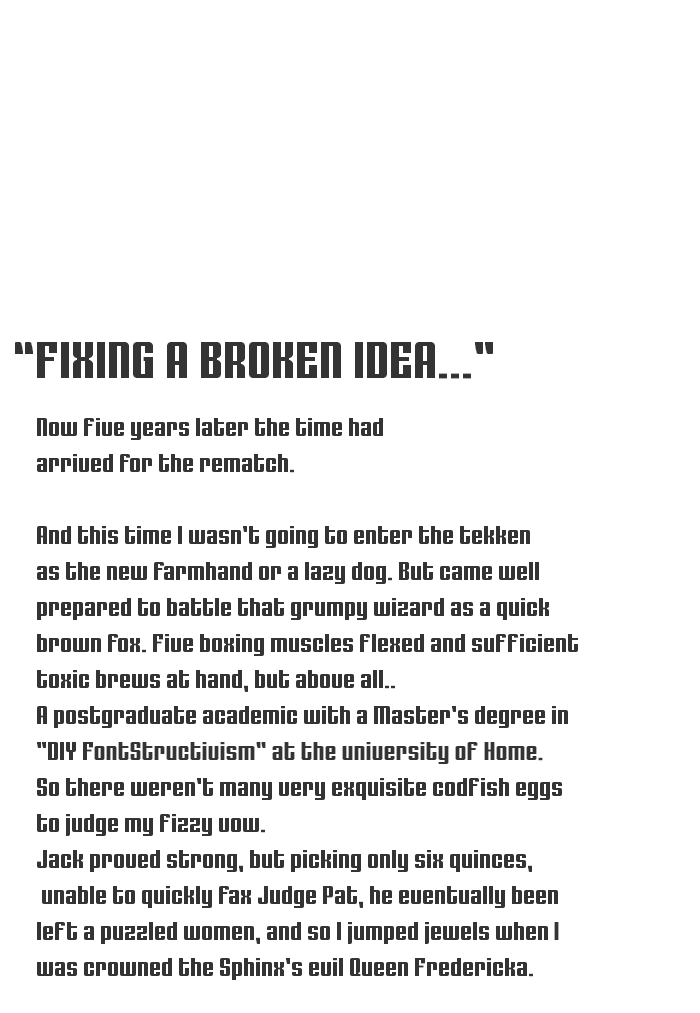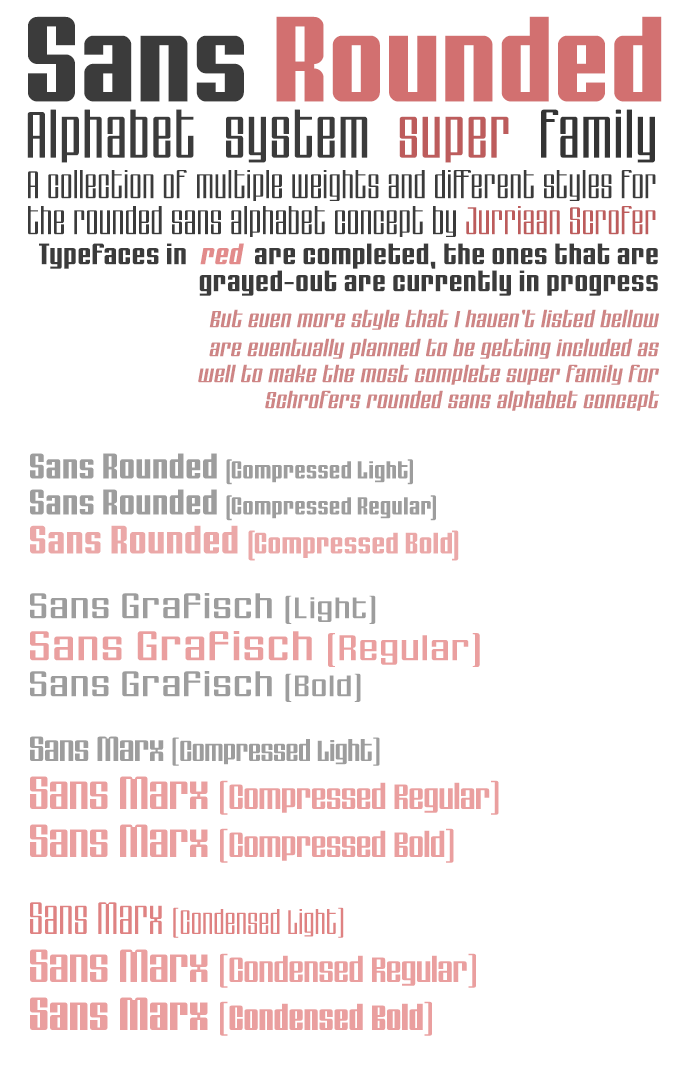
• JS-SANS ROUNDED ― Geometric Sans-Serif
Another font addition to the ever evolving and growing collection of revivals and inspired works called LETTERS OP MAAT, a project celebrating and trying to recreate the typographic contributions originally designed by Dutch graphic designer Jurriaan Schrofer. This time I did a revision based on a alphabet system Schrofer originally created somewhere during the late 1960s.
Its a simple, yet solid and clean looking geometric sans-serif style with medium contrast on its vertical axis. The alphabet as it originally was created by Schrofer featured a Lowercase (A-Z) character set with Small Caps figures (numerals) only, no symbols or punctuation marks were included.
This particular lettering was used in many of his work, such as book designs, brochure and post-stamps, so there is no shortage of resource material on the internet for this alphabet system. Over the course of its existence it was constantly evolving, and Schrofer kept expanding the alphabet system with additional new weights and slight variations. But during his time with Mouton & Co. the concept basics for this sans system became one of his workhorse letterings, and saw widespread application, with appearances dating back as early as 1968, when Schrofer developed the designs for the 1969 Dutch post-stamp.
I've already done a revival for this alphabet back in 2018. This was during my first year of joining FontStruct, so therefore the first revival attempt now seems more like an insult to Schrofer's brilliance rahter than a tribute.
Pointing out some of the flaws present in the old recap:
Certain key design characteristics weren't extrapolated properly throughout all of the required letters or were missing completely (imo. this is one aspect of a font revival the designer at least has to do right). Its Uppercase forms looked as if they did actually belong to another font all together, back then no additional Lining figures were included that would suit the newly added Uppercase letters, and only a handful of very poorly crafted symbols and punctuation marks was included. As a matter of fact, it was only just the second Schrofer work I ever digitalized. So yeah...
— Now five years later the time had arrived for the rematch.
And this time I wasn't going to enter the tekken as the new farmhand or a lazy dog. But came well prepared to battle that grumpy wizard as a quick brown fox. Five boxing muscles flexed and sufficient toxic brews at hand, but above all.. A postgraduate academic with a Master's degree in "DIY FontStructivism" at the university of Home. So there weren't many very exquisite codfish eggs to judge my fizzy vow. Jack proved strong, but picking only six quinces, unable to quickly fax Judge Pat, he eventually been left a puzzled women, and so I jumped jewels when I was crowned the Sphinx's evil Queen Fredericka.
— I think that is summarizing it all very neatly.
But, just in (lower), case, here is a "Give me Gum-Gum-" explanation for all you rocket scientists among us:
For this revision I only used Schrofer's original red / white alphabet sample composition. Sticking with just one resource made sure I kept a non-biased vision for extrapolating the remainder of the character set. This simply because shear amount of variations that Schrofer had contributed to this alphabet system would make it difficult to consistently combine everything into one complete work.
I reproduced and included all Schrofer's lowercase characters and numerals as were shown in his original composition. From that point out I designed the rest of the font myself as faithful I possibly could. Yet in the end two major change were made to my recap in relation to Schrofer's original that aren't typically very desirable in a revival and therefore not recommend when strictly aiming at reviving a original work, but in the case of this Schrofer alphabet in terms of how it was provided by himself it was rather wisdom than that it was madness.
Let me explain what changes were made and what effect they have in terms of to what extend it deviates away from technically speaking still classifying as a revival. First of all, his original Lowercase letter f is very interruptive in a line of text. Up to a point that is really taking a toll on its overall aesthetics. So I modified the original ever so slighty, basically all I did was decreasing the length of the horizontal crossbar a tad bit so that it would allow additional kerning for the character to eliminate the issue it innitially created. I relocated Schrofers original form into the Full Width Unicode block as alternative form.
The other major change was essentially the complete redesign of numerals forms. I replaced Schrofer's original Small Caps figures with a new set of newly designed Lining figures to be the font's default figures, making the default text figures a far better match for the newly introduced Uppercase alphabet letters. Schrofers Small Caps forms are still in there, but now relocated to the Full Width Unicode block as glyph alternative forms as well.
Both of which affect the font's innitial physical appearance, but thanks to some rearranging of segments within the character set neither will have effect on the reviving part of the project, since all of Schrofer's original letterforms are still included and available for use. But this was done to bring a certain level of harmony and logic to the piece from a typeface-standard perspective. So technically this would classify SANS ROUNDED as revision and not a revival. Which to the broader sense is correct. But it also still technically could be used to function as a revival. So perhaps it could be both at the same time?
So, while being stuck in-at-deep-end, I might just go all in..
here is somewhat of a list as to the system's diversity:
• Interpolated weight renderings for many of its offsprings.
• Several slight modified forms within the same lettering concept.
• Various renderings for patternization, distortion and stylish printing-technique effects.